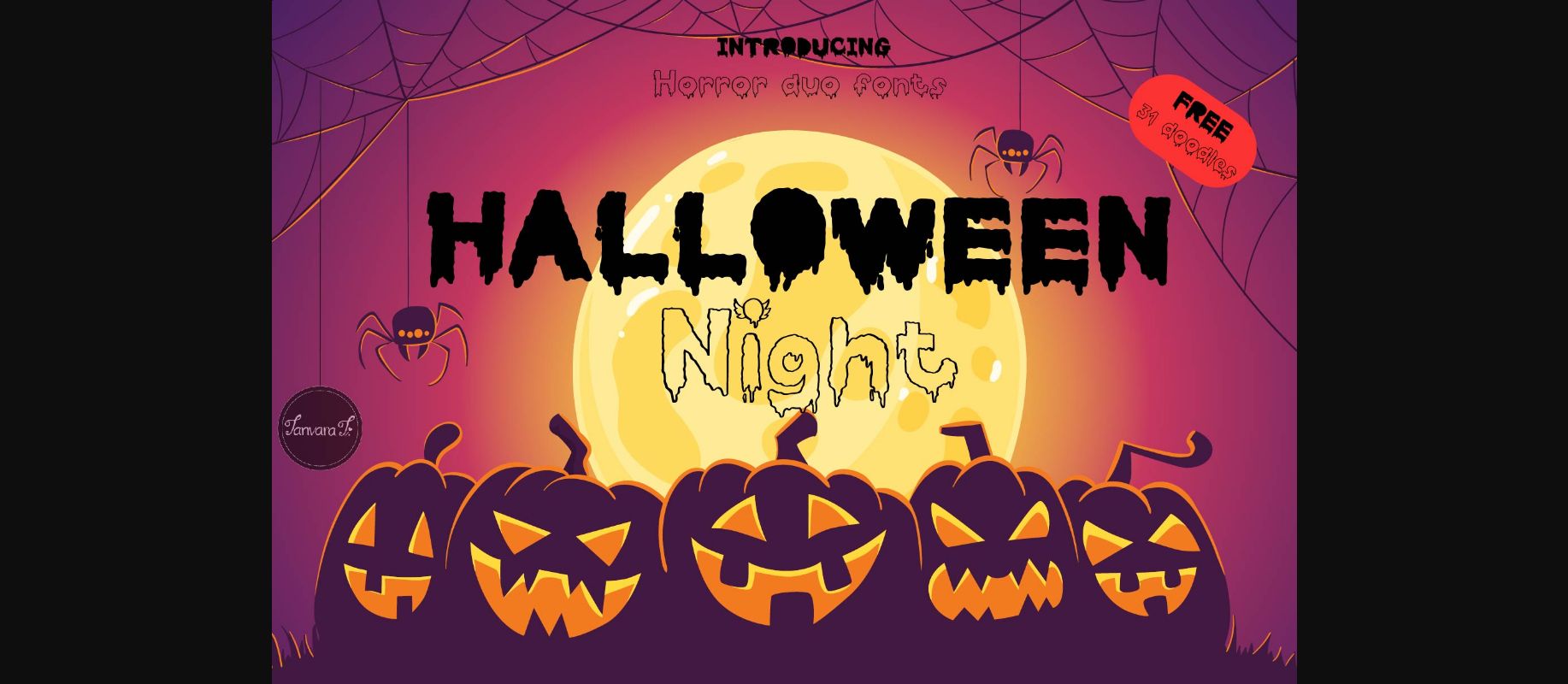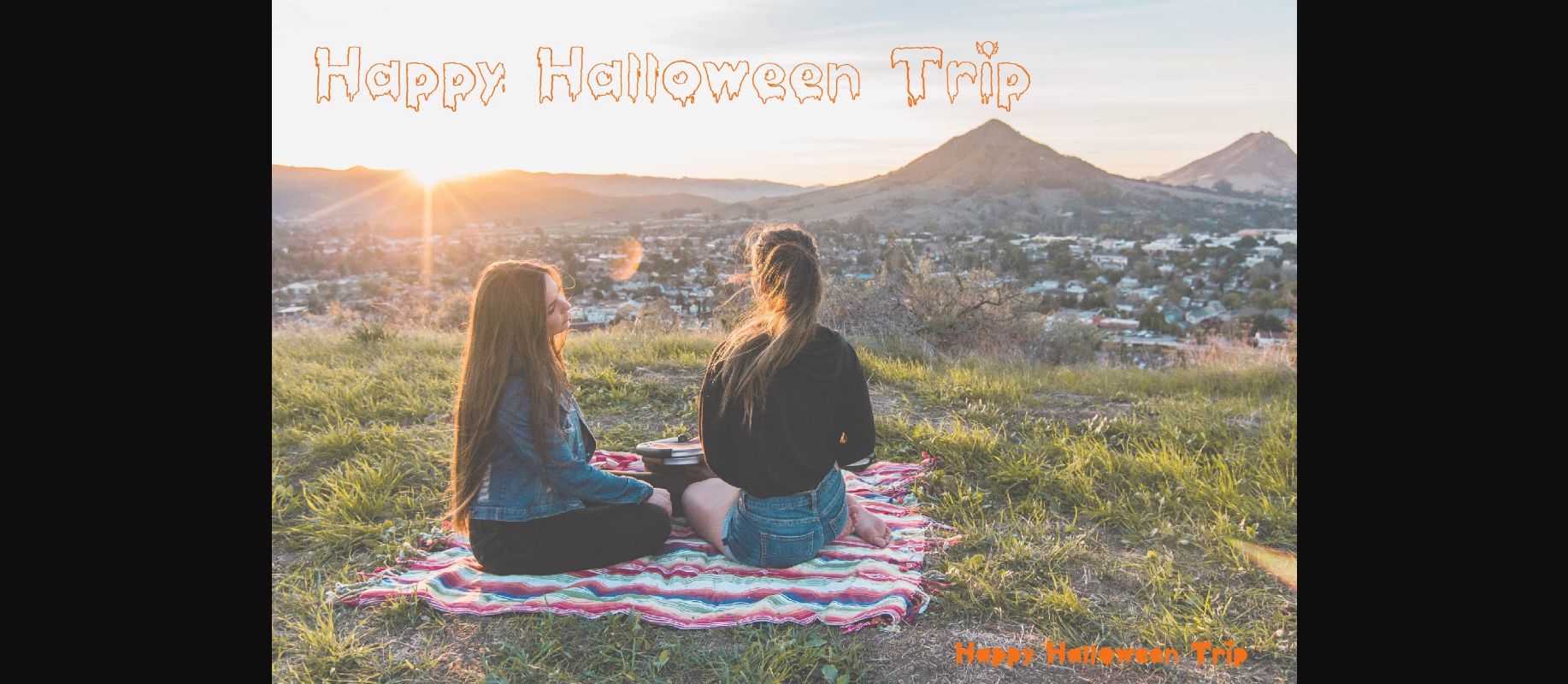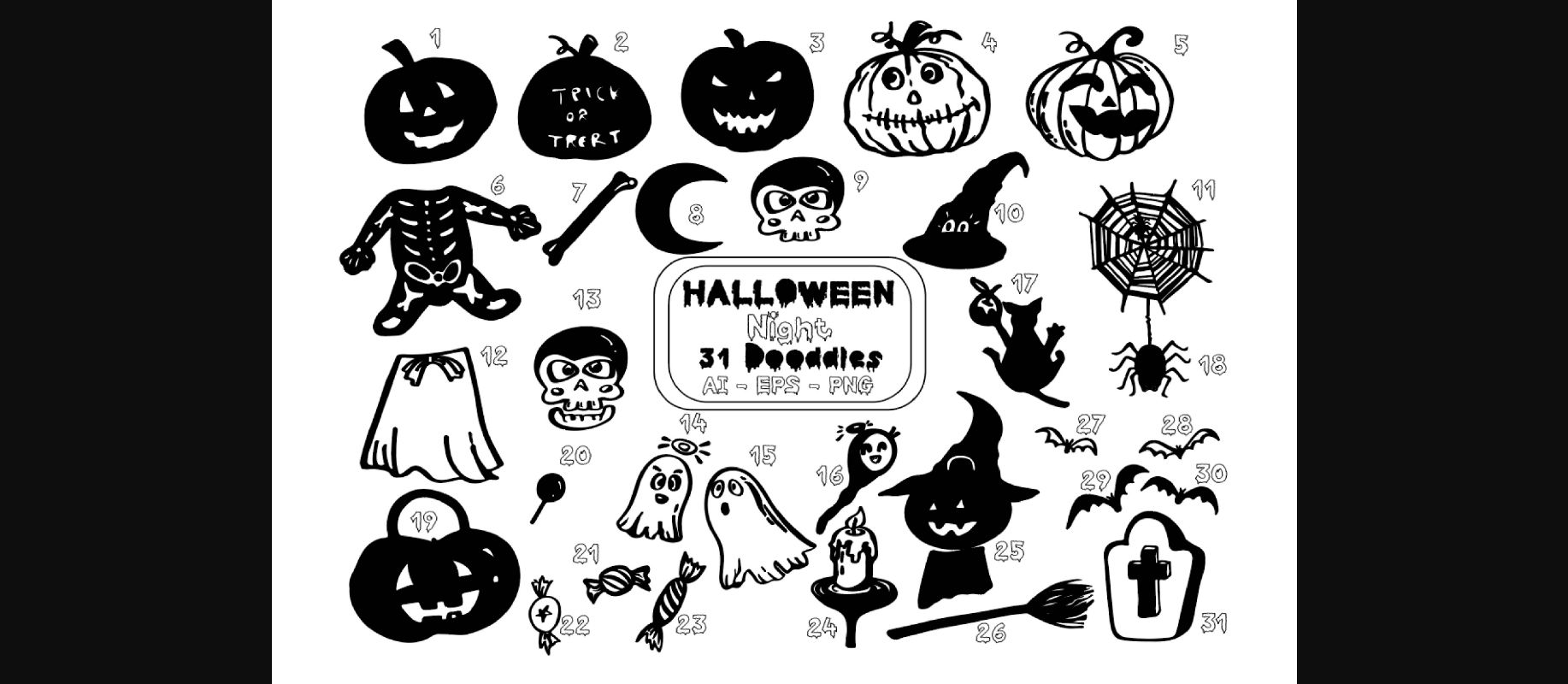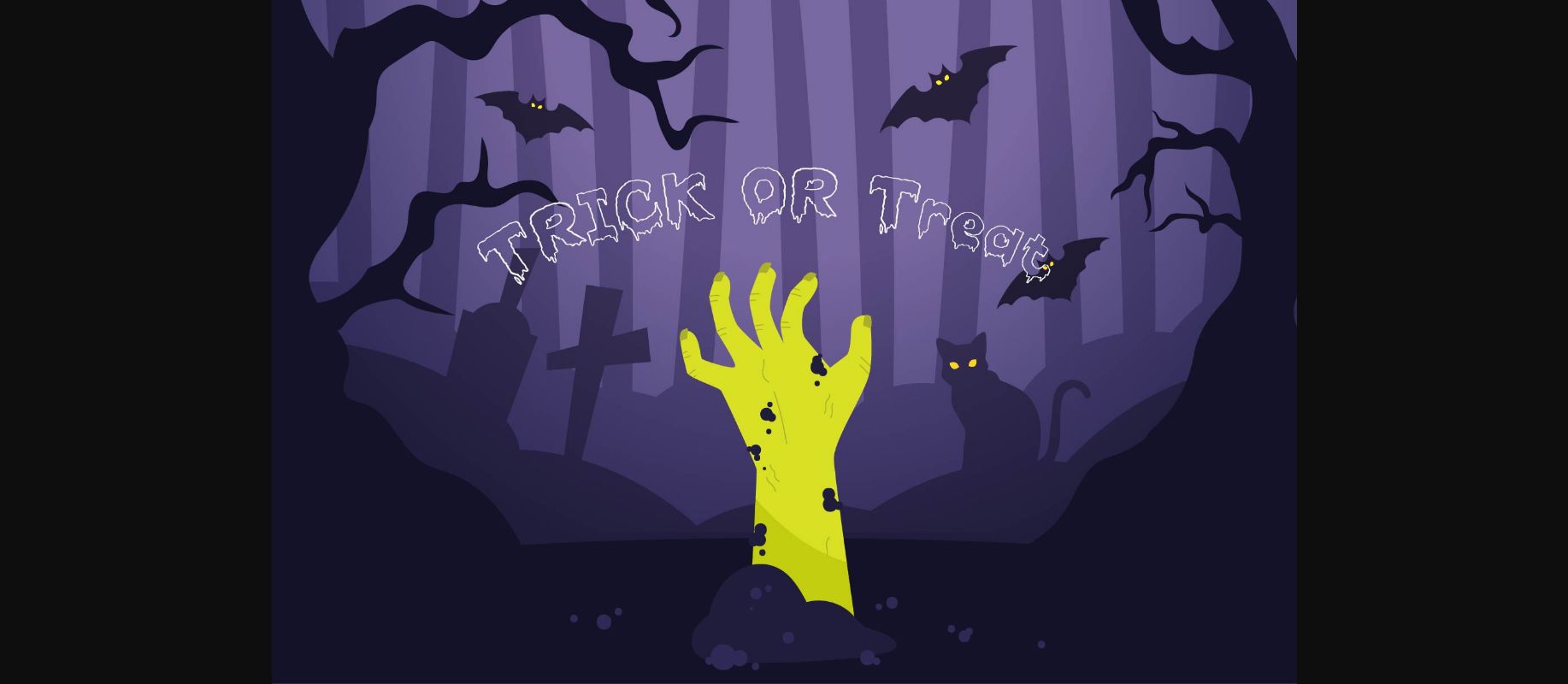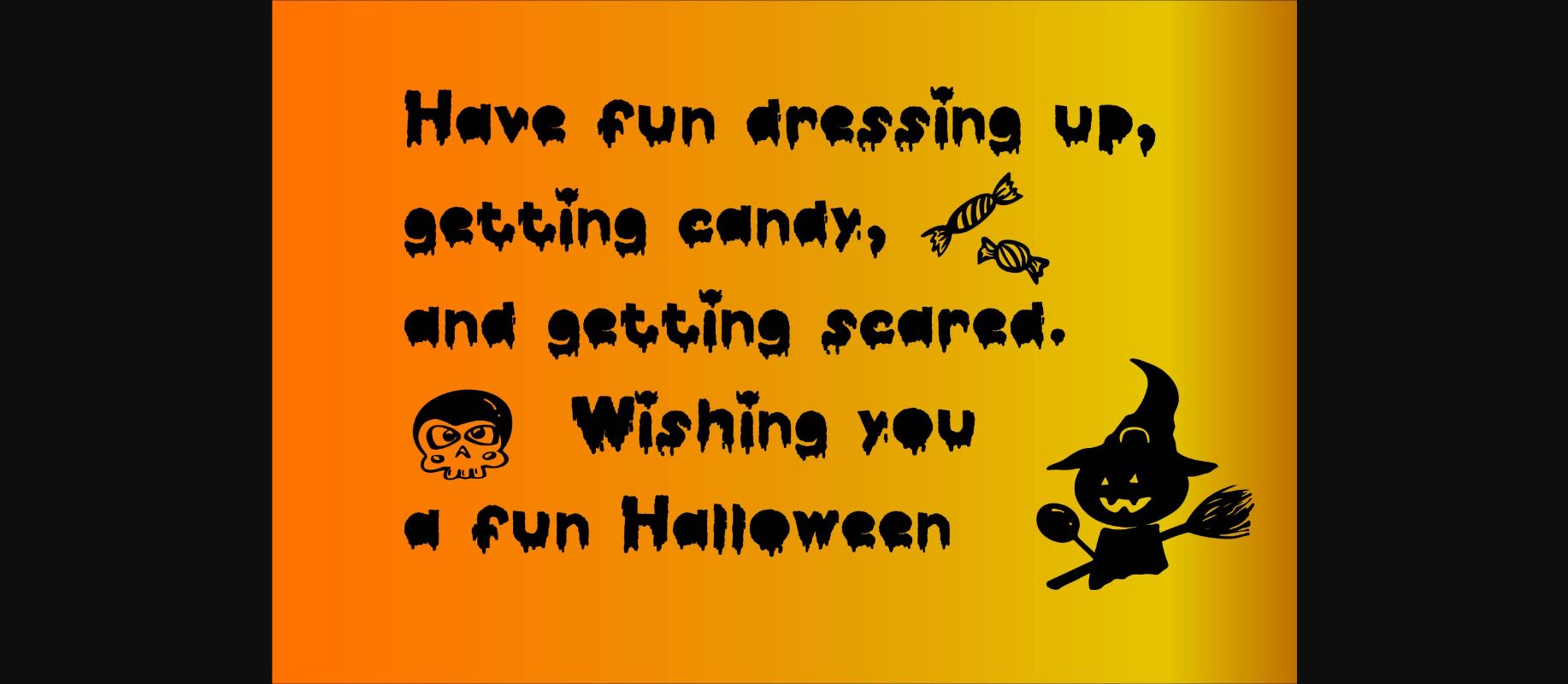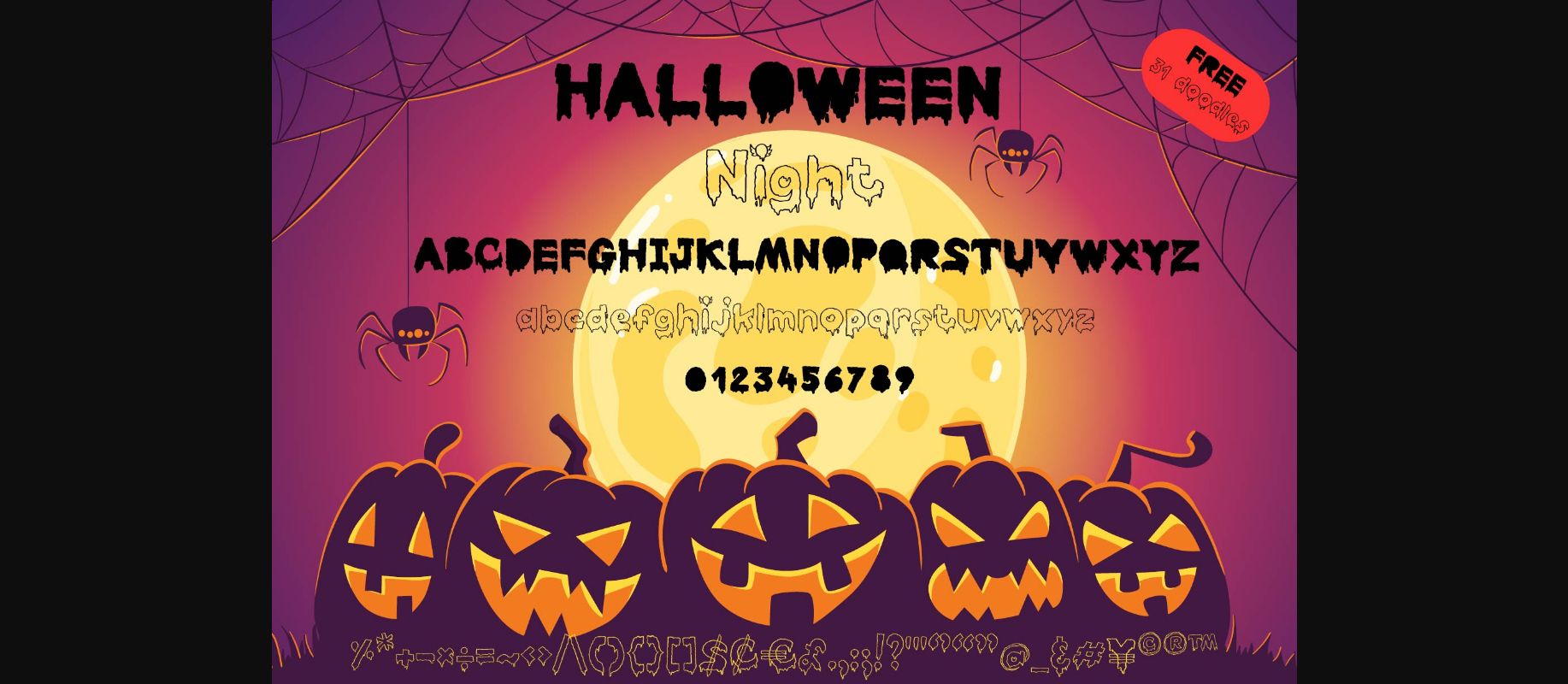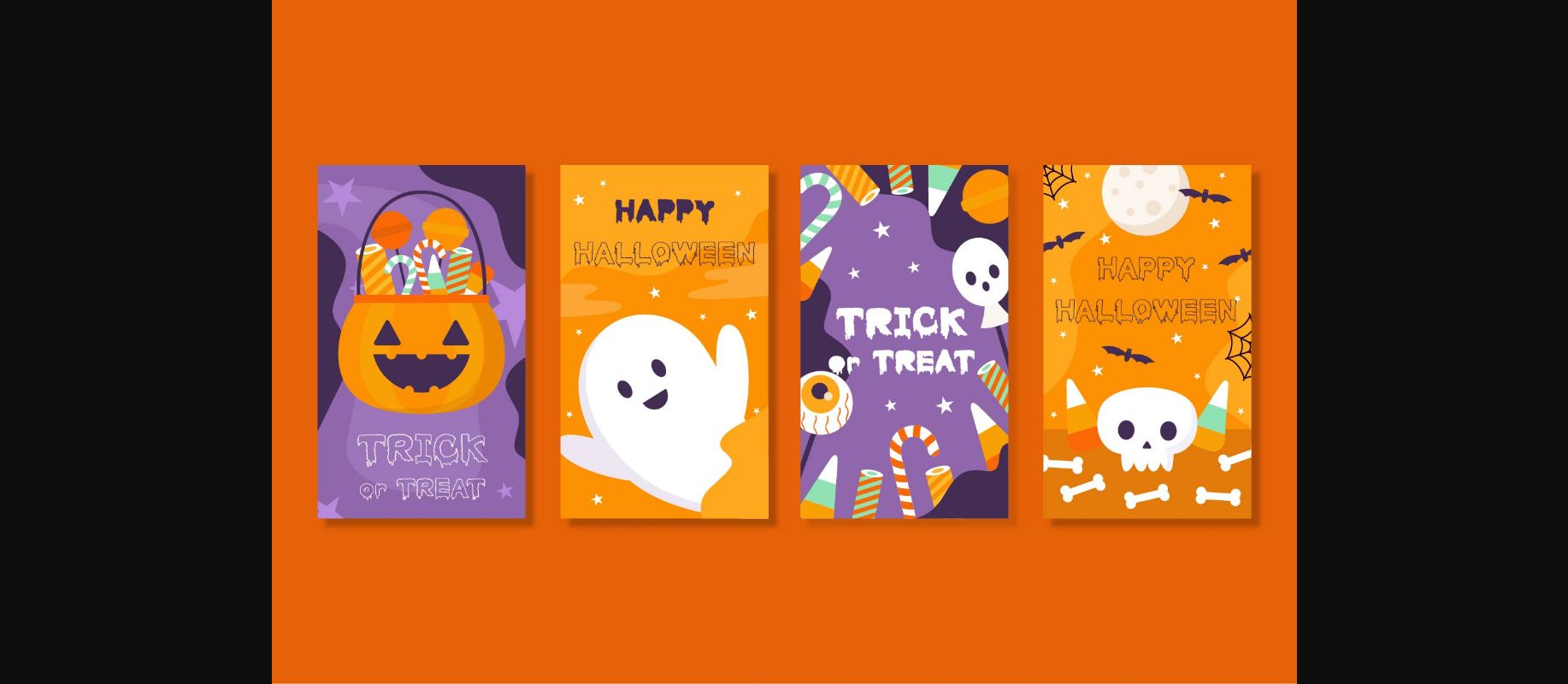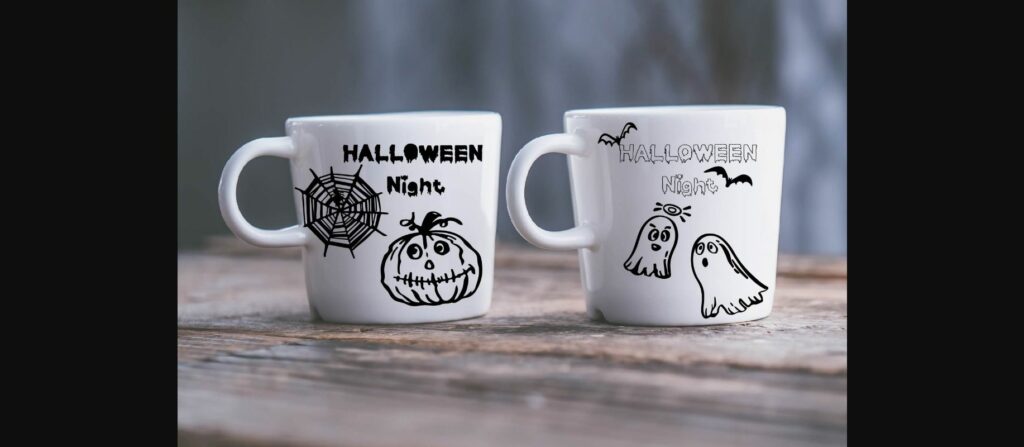
Halloween Night Font
About Halloween Night Font
Make your designs stand out with Halloween Night, a stylish and unique decorative font. It will look stunning on posters, thank you cards, quotes, greeting cards, logos, business cards and every other design which needs a creative touch.